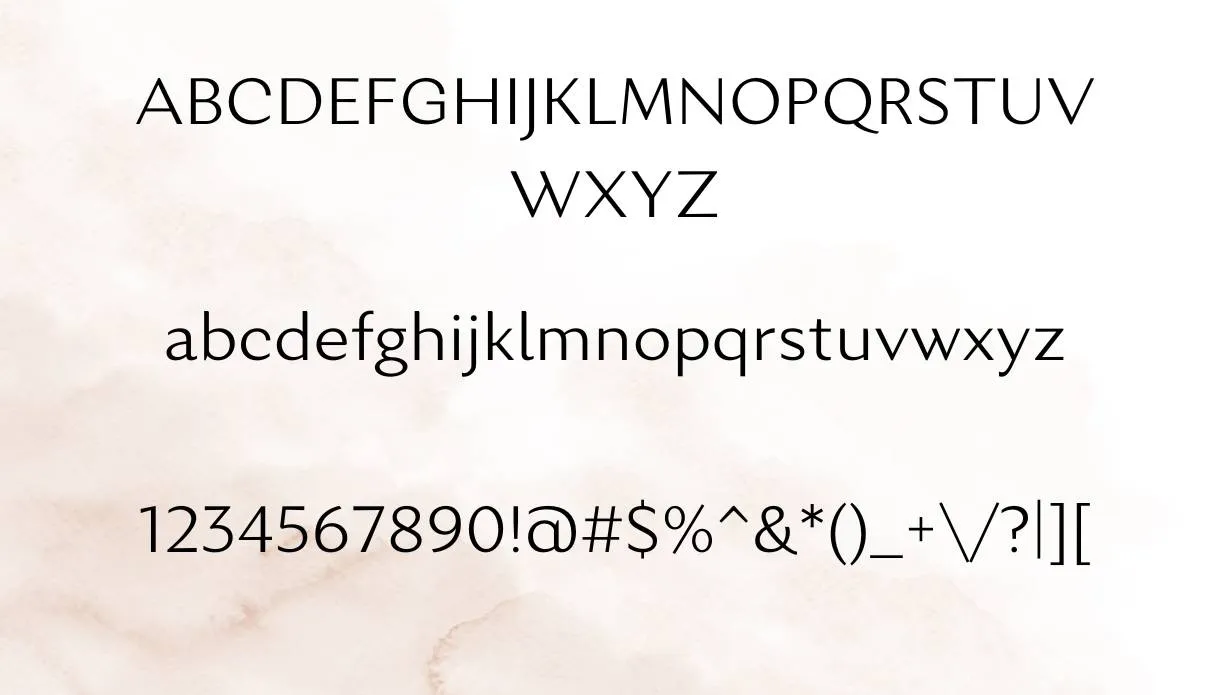
Excentra Pro Font is a unique and eye-catching typeface, perfect for designs that want to stand out. With its bold and distinctive letterforms, it’s often used for headlines, posters, and creative advertising.
This font adds a touch of individuality and impact to your design work.
| Name | Excentra Pro Font |
| Designer | Andriy Konstantynov |